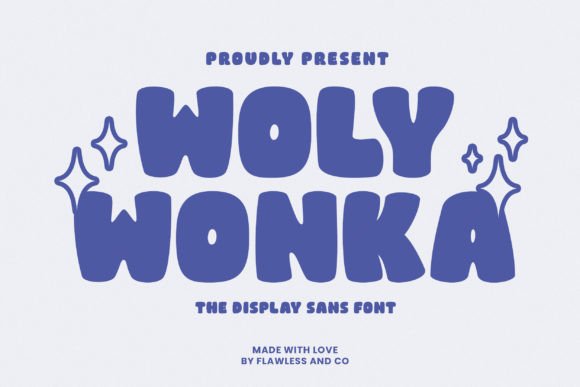
Behold the "Woly Wonka" Font: A Whimsical Display Sans, Capturing the Essence of Imagination and Fun.
Adorn your designs with an aura of playfulness and imagination. "Woly Wonka", a captivating display sans font by the renowned Flawless and Co., beckons you to embark on a whimsical journey where creativity flourishes. Each character brims with charm, reflecting a distinct style that transforms your designs into enchanting expressions of art.
Dive into a world of boundless possibilities, where "Woly Wonka" adds a dash of magic to your T-shirt designs. Its characters dance gracefully across fabrics, inviting customers to embrace their playful side. Let your imagination soar as you create designs that exude joy and captivate all who behold them.
"Woly Wonka" possesses a versatile nature, adapting effortlessly to a myriad of creative endeavors. Whether you seek to produce eye-catching posters, vibrant packaging, or alluring website designs, this font rises to the occasion, infusing your creations with a touch of wonder and lightheartedness.
With "Woly Wonka" as your creative ally, you'll embark on a transformative journey where designs come alive. Its whimsical charm enchants viewers, leaving a lasting impression that lingers in their hearts. Embrace the magic of "Woly Wonka" and watch your designs blossom into captivating works of art that ignite the imagination.